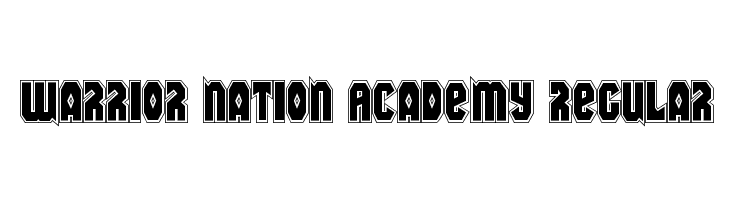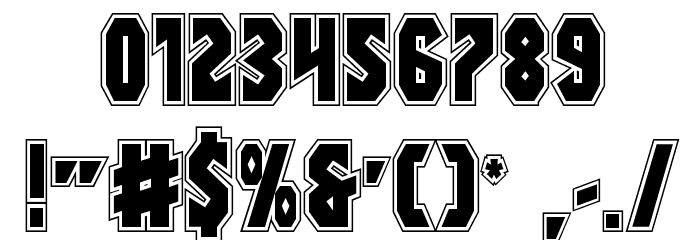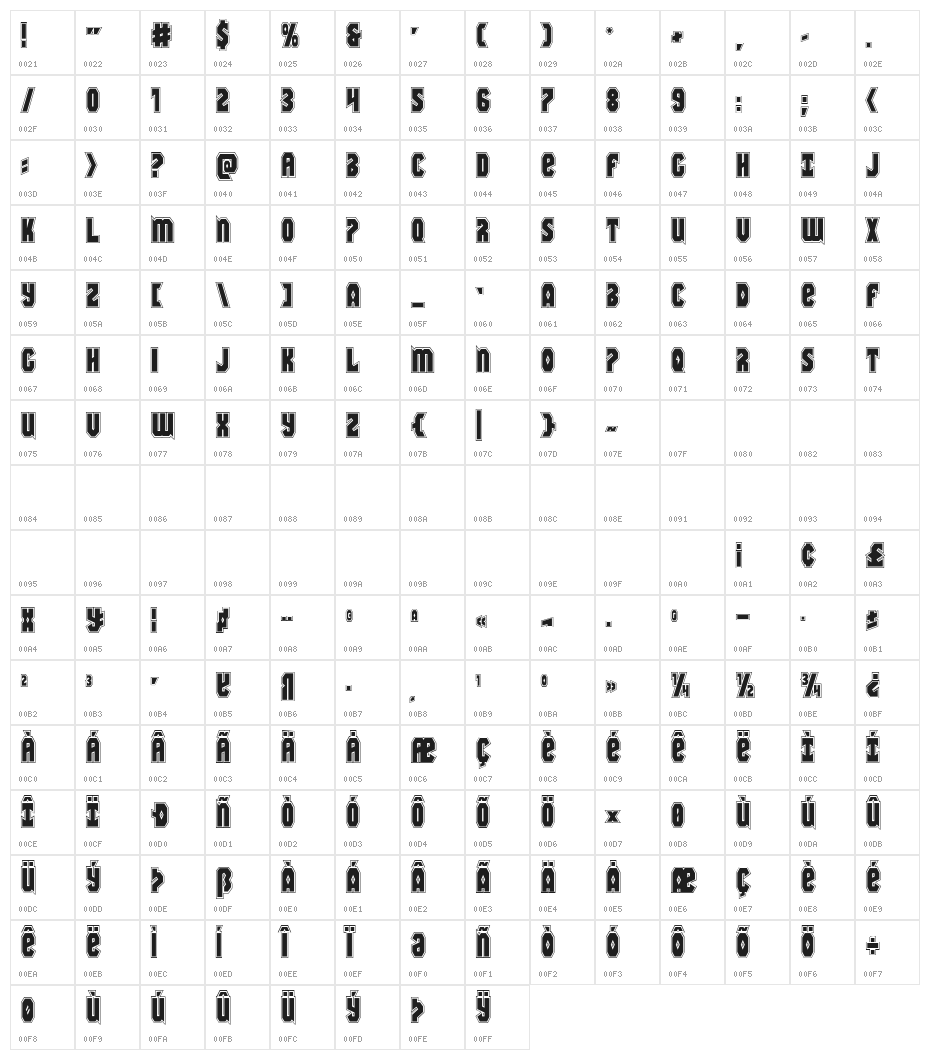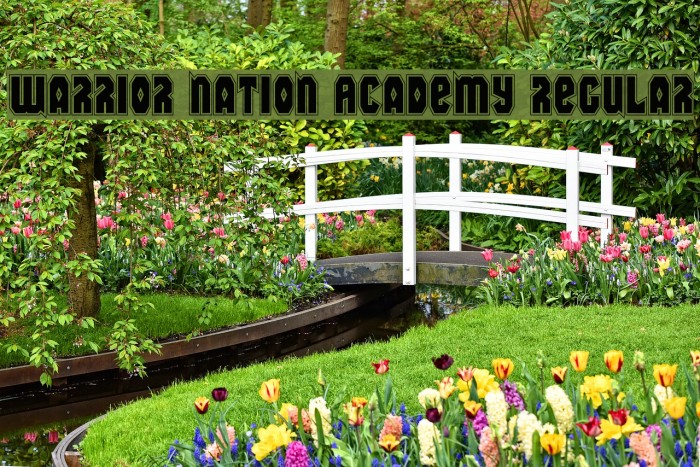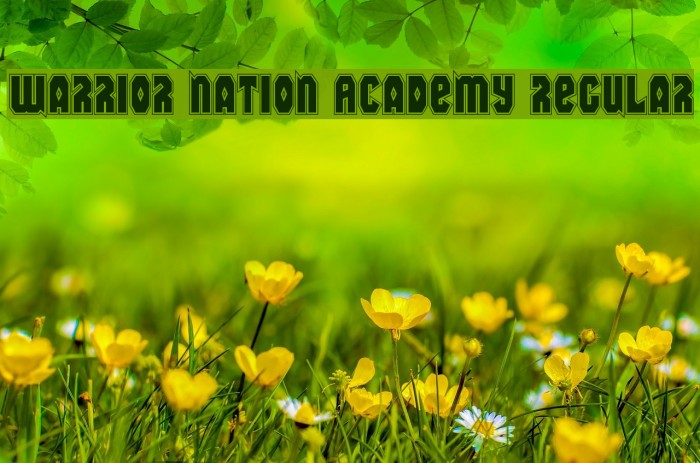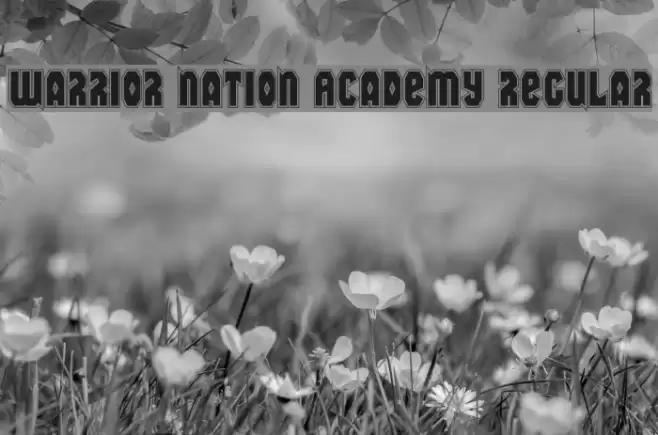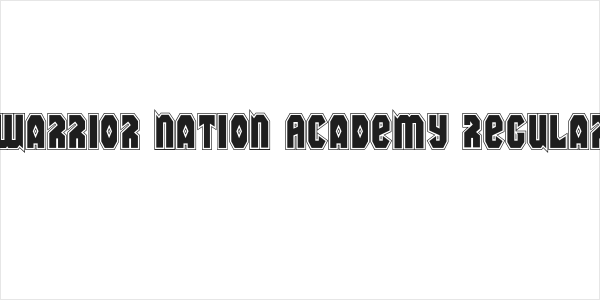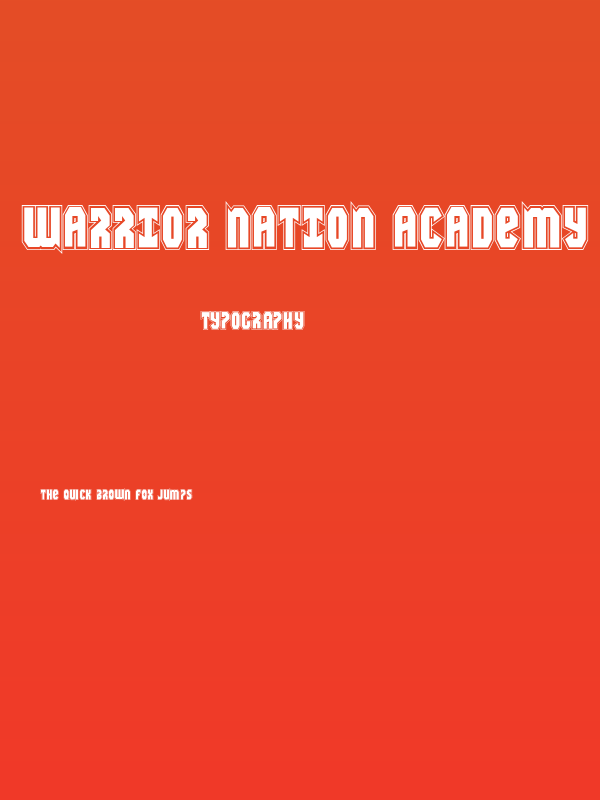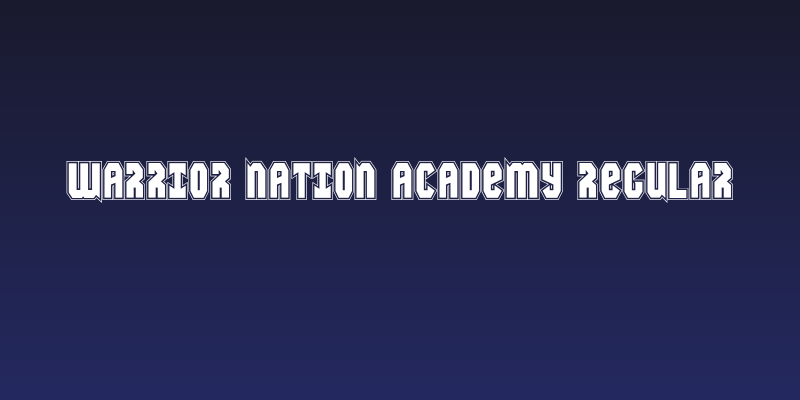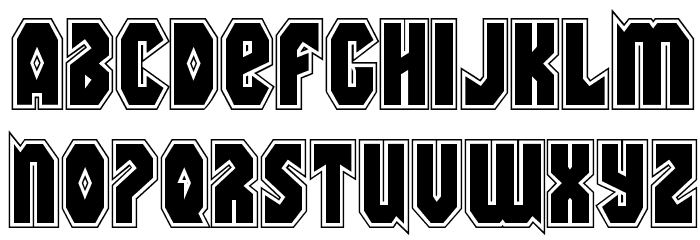
Warrior Nation Academy Regular Font
Warrior Nation Academy Regular Description
This font features a bold and striking design with a strong, angular structure. The characters are outlined with a thick border, giving them a three-dimensional appearance. The style is reminiscent of sports or military themes, with a sense of power and authority. The uppercase and lowercase letters maintain a consistent geometric form, while the numbers and special characters follow the same bold aesthetic. The overall look is dynamic and impactful, making it suitable for attention-grabbing headlines or logos.
| Proposed Projects | Ideal for sports team branding, military-themed designs, or any project requiring a bold, impactful typeface. |